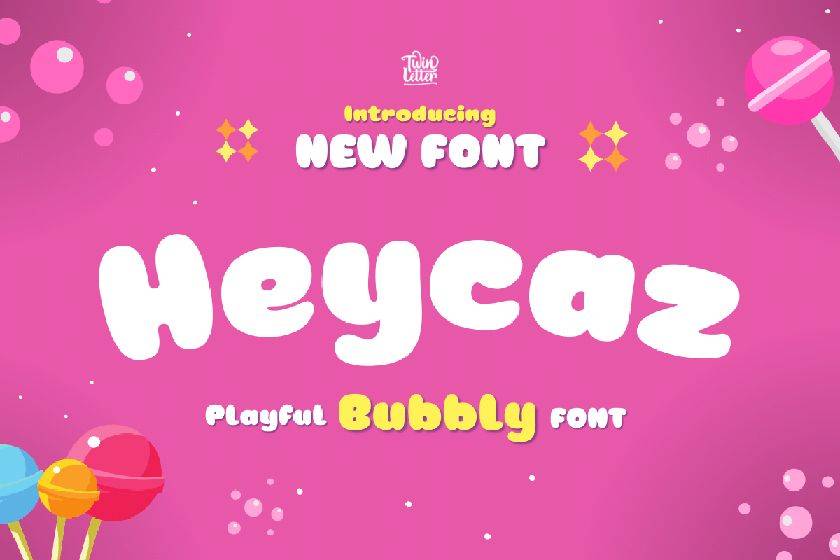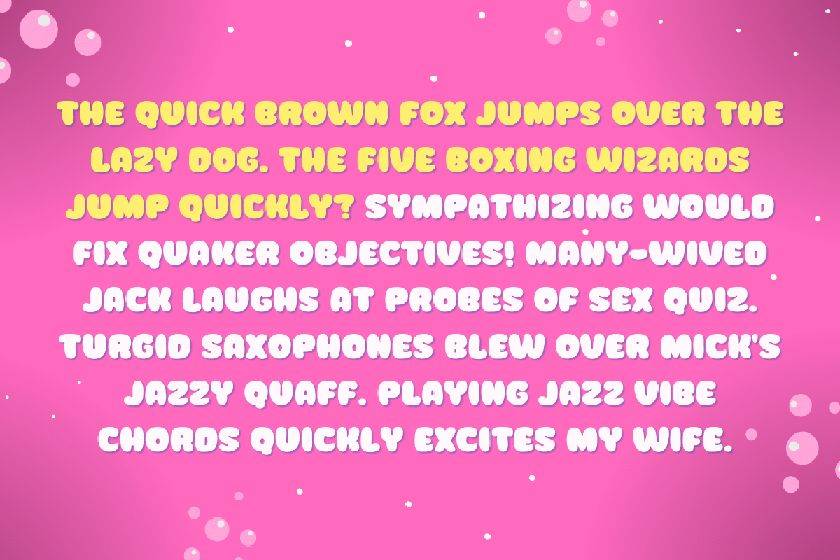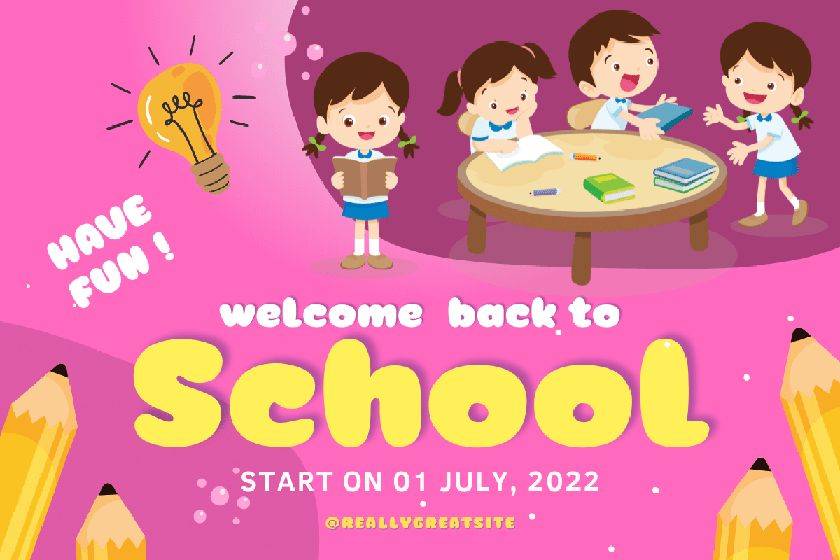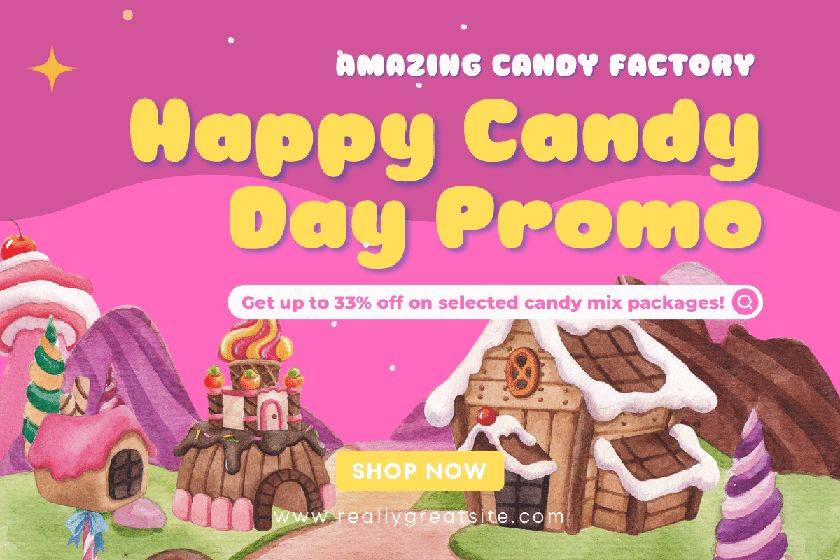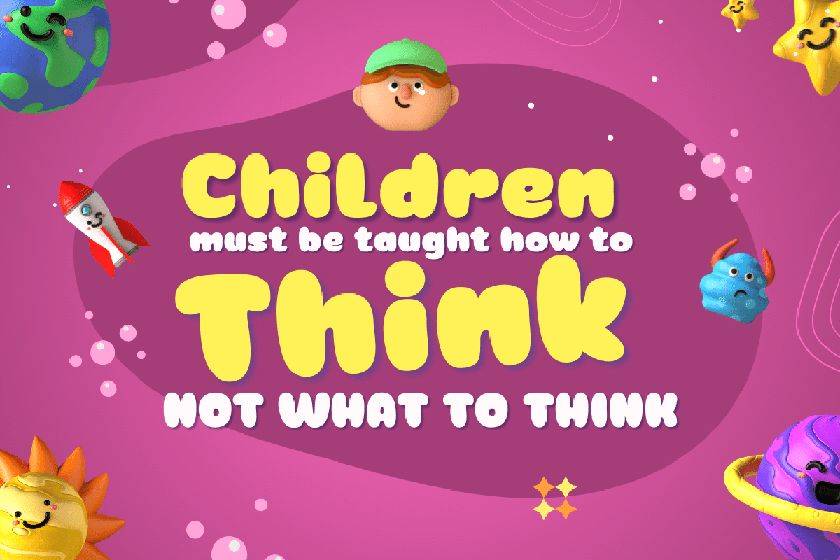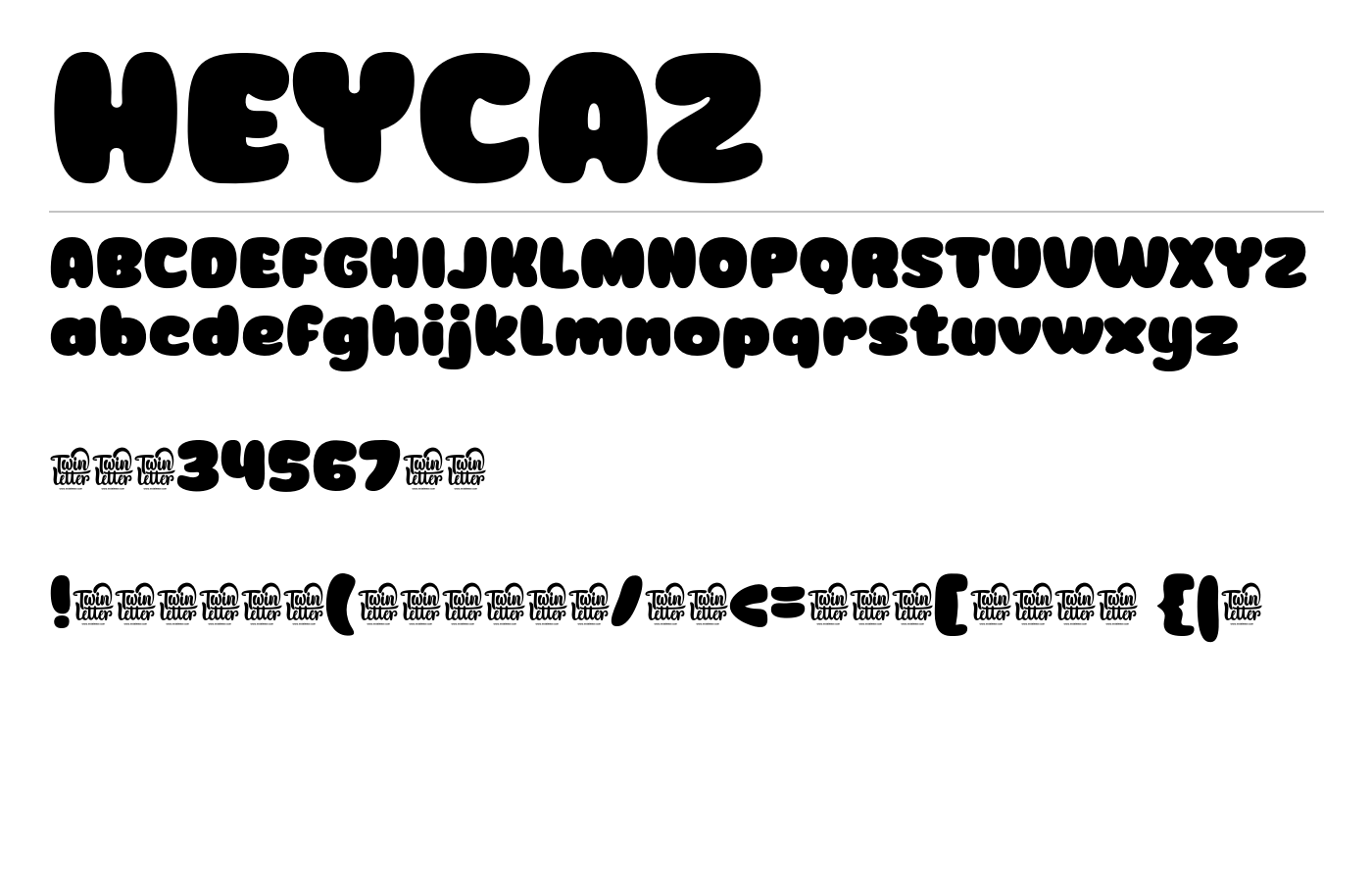
Heycaz is a playful, bold sans-serif font with rounded, bubbly letterforms that convey a friendly and approachable vibe. Its thick weight and soft curves make it ideal for attention-grabbing headlines, logos, or packaging designs aimed at a youthful or fun audience. This font stands out in casual and creative branding settings where a lively and informal tone is desired.
Heycaz Font
About Heycaz Font